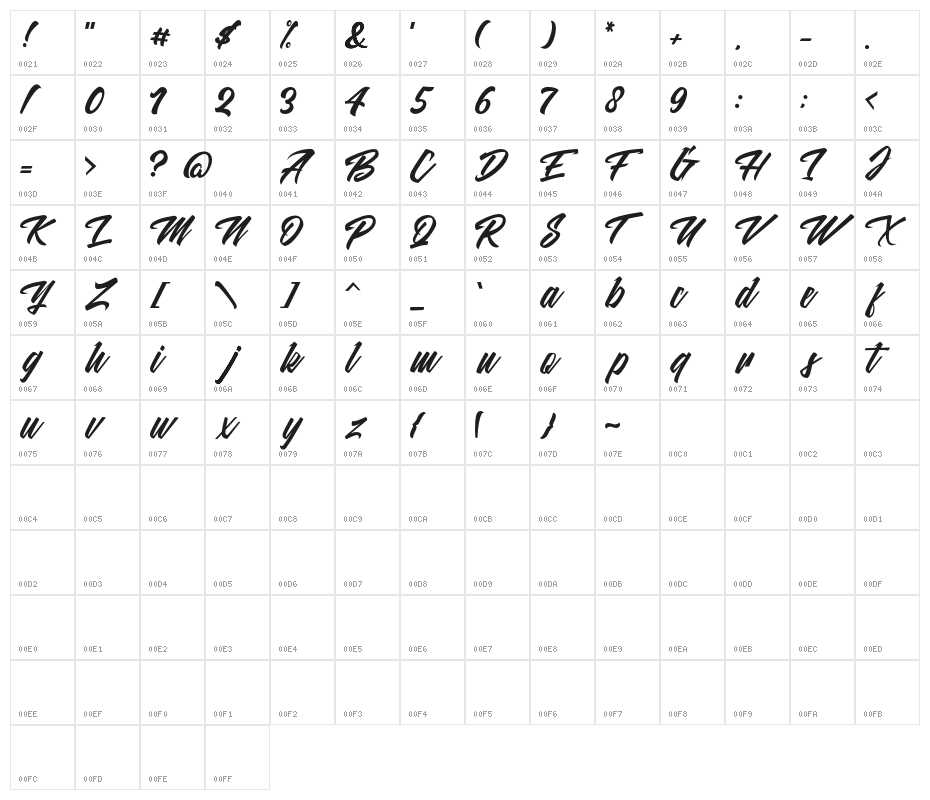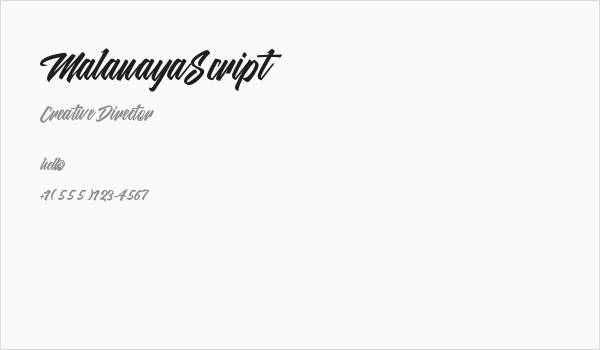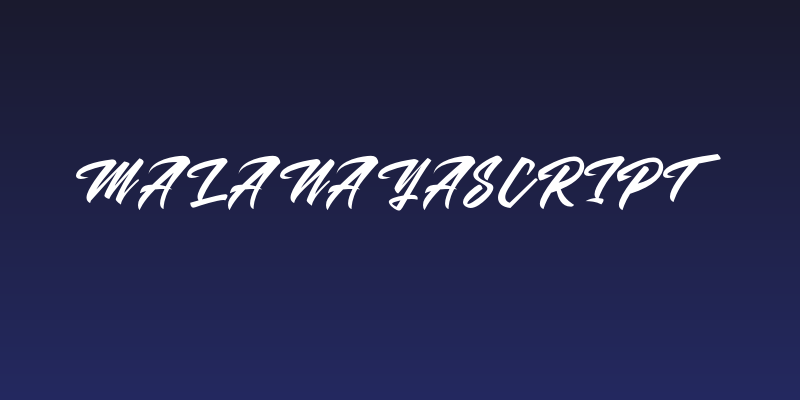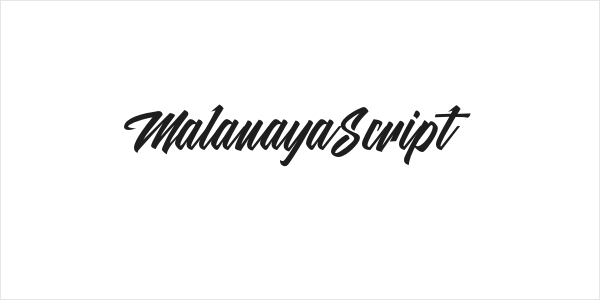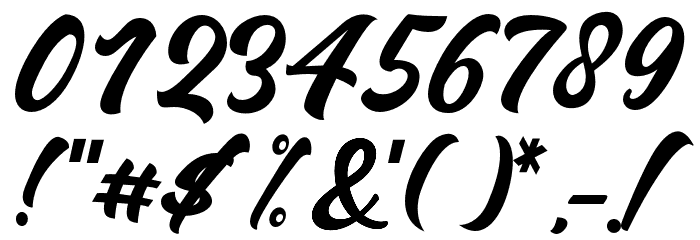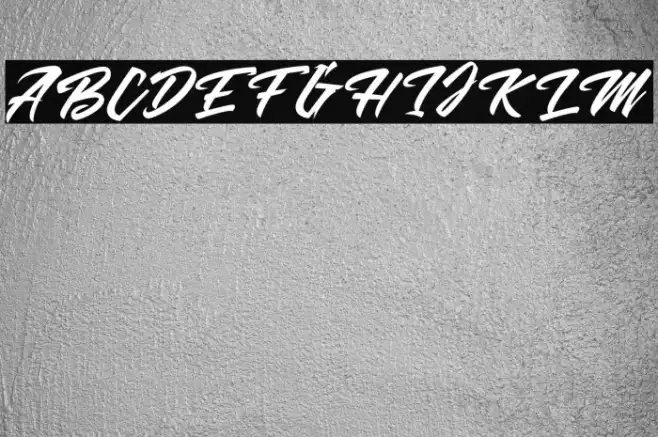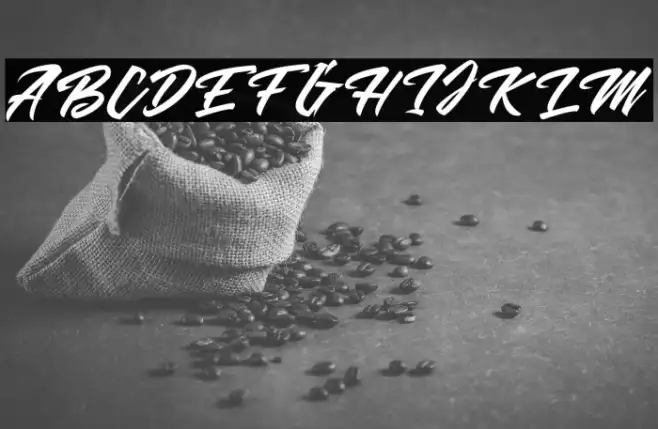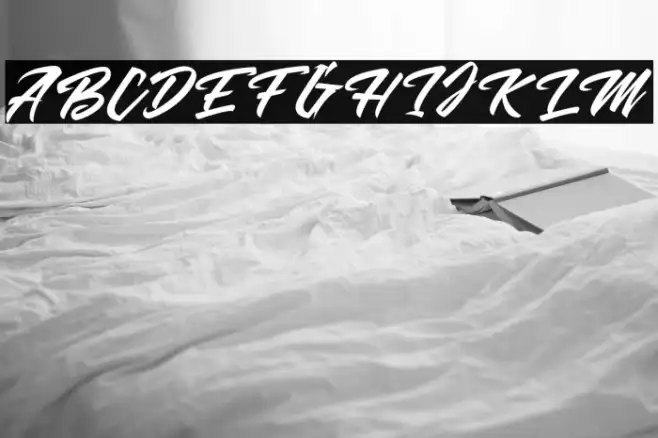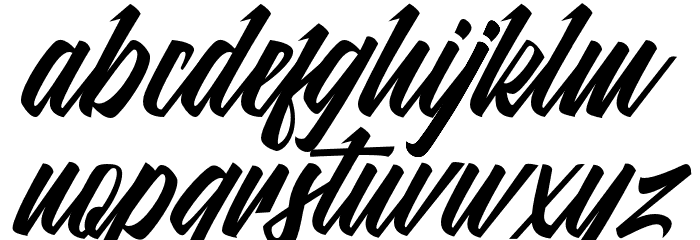
MalanayaScript Font
MalanayaScript Description
This font features a dynamic and flowing script style, characterized by its elegant and cursive letterforms. The uppercase letters exhibit a graceful, sweeping motion, while the lowercase letters maintain a consistent, fluid connection. The numbers and special characters are designed with the same attention to detail, ensuring a cohesive look across all glyphs. The strokes are bold and confident, with a slight slant that enhances the script's natural rhythm. This font is perfect for adding a touch of sophistication and flair to any design project.